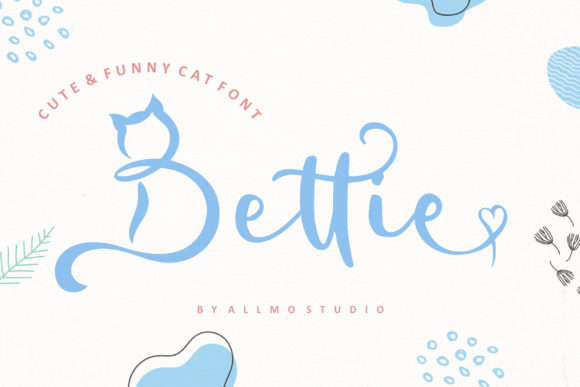
Bettie Font: Elevate Your Design with Elegance and Sophistication
In the world of typography, a font can make or break a design. It has the power to evoke emotions, convey messages, and add a touch of personality to any project. If you’re looking for a font that exudes elegance, sophistication, and a dash of modernity, look no further than the Bettie font. This stunning handwritten font is designed to take your designs to the next level, and in this article, we’ll explore what makes it so special.
What is Bettie Font?
Bettie is a beautiful, elegant, and flowing handwritten font that is perfect for a wide range of design projects. Whether you’re working on a logo, branding, packaging, or marketing materials, Bettie is the ideal choice. Its unique blend of classic calligraphic influences and modern flair makes it a versatile font that can be used in various contexts.
Key Features of Bettie Font
So, what sets Bettie apart from other fonts? Here are some of its key features:
• PUA Encoding: Bettie is PUA (Private Use Area) encoded, which means you can access all the glyphs and swashes with ease. This makes it incredibly easy to use and customize.
• Varying Baseline: The font features a varying baseline, which gives it a natural, handwritten feel.
• Smooth Lines: The lines in Bettie are smooth and flowing, creating a sense of elegance and sophistication.
• Gorgeous Glyphs: The font comes with a range of gorgeous glyphs and stunning alternates, allowing you to add a touch of personality to your designs.
• Classy Calligraphic Influences: Bettie maintains its classy calligraphic influences while feeling contemporary and fresh.
Why Choose Bettie Font?
With so many fonts available, why choose Bettie? Here are just a few reasons:
• Elegance and Sophistication: Bettie exudes elegance and sophistication, making it perfect for high-end designs.
• Versatility: The font is versatile and can be used in a wide range of design projects.
• Easy to Use: With PUA encoding, Bettie is incredibly easy to use and customize.
• Unique and Fresh: The font’s unique blend of classic and modern elements makes it stand out from the crowd.
Bettie Font in Action
Bettie font can be used in a wide range of design projects. Here are a few examples:
• Logo Design: Use Bettie to create a stunning logo that exudes elegance and sophistication.
• Branding: Use the font to create a cohesive brand identity that reflects your values and personality.
• Packaging: Use Bettie to create eye-catching packaging that stands out on store shelves.
• Marketing Materials: Use the font to create stunning marketing materials, such as brochures, flyers, and posters.
Tips and Tricks
Here are a few tips and tricks to help you get the most out of Bettie font:
• Experiment with Glyphs: Don’t be afraid to experiment with the glyphs and swashes to add a touch of personality to your designs.
• Mix and Match: Mix and match Bettie with other fonts to create a unique and interesting combination.
• Pay Attention to Kerning: Pay attention to kerning to ensure that your text looks professional and polished.
In conclusion, Bettie font is a stunning handwritten font that is perfect for designers looking to add a touch of elegance and sophistication to their designs. With its PUA encoding, varying baseline, smooth lines, gorgeous glyphs, and stunning alternates, Bettie is a versatile font that can be used in a wide range of design projects. Whether you’re working on a logo, branding, packaging, or marketing materials, Bettie is the ideal choice. So why wait? Fall in love with Bettie and bring your projects to the highest levels!